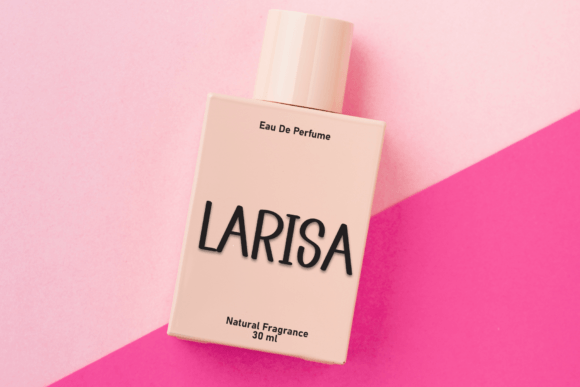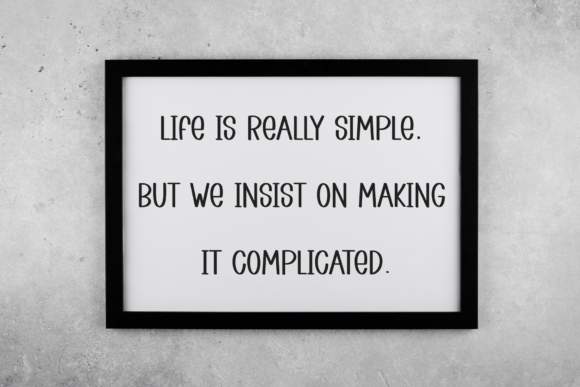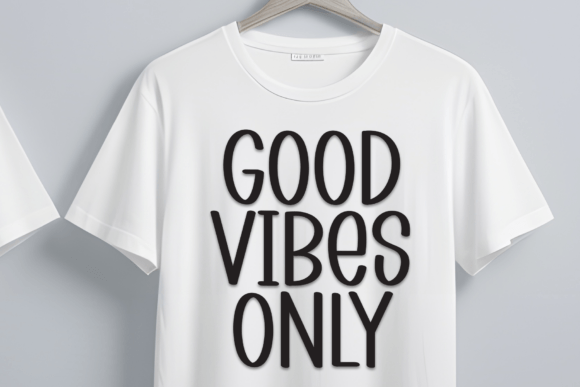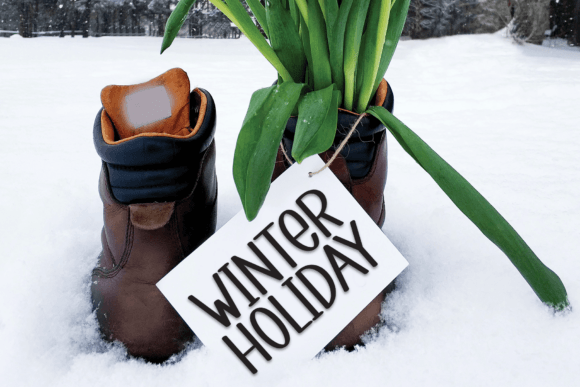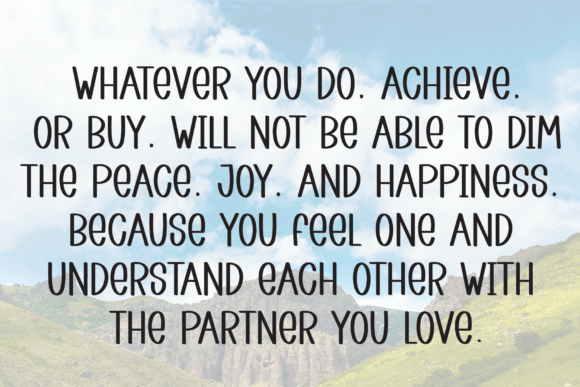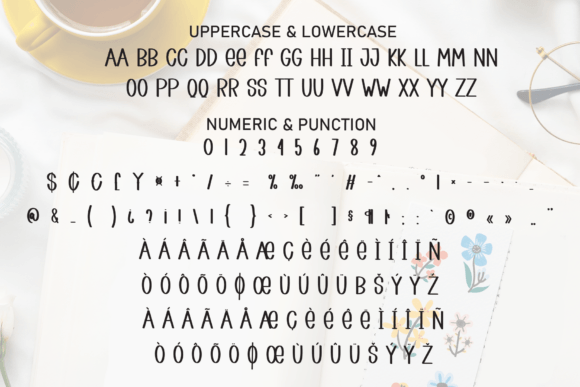
Introducing Bookmark Font: The Ultimate Display Font for Creative Projects
In the world of typography, a good font can make all the difference in the success of a design project. Whether you’re a graphic designer, a crafty DIY enthusiast, or a marketing professional, finding the right font can be a daunting task. That’s why we’re excited to introduce Bookmark Font, a bold and eye-catching display font that’s perfect for making titles, headlines, or important text stand out.
What is Bookmark Font?
Bookmark Font is a modern and playful display font that’s designed to grab attention. Its thick, clear letters are perfect for creating titles, headlines, or important text that needs to stand out. The font is versatile and can be used for a wide range of creative projects, including posters, logos, ads, and more.
Key Features of Bookmark Font
• Bold and Eye-Catching: Bookmark Font is designed to make a statement. Its thick, clear letters are perfect for creating titles, headlines, or important text that needs to stand out.
• Modern and Playful: The font has a modern and playful style that’s perfect for creative projects. It’s great for designs that need a bit of personality and flair.
• Versatile: Bookmark Font can be used for a wide range of creative projects, including posters, logos, ads, and more.
• Easy to Read: Despite its bold style, Bookmark Font is easy to read, making it perfect for titles, headlines, or important text.
Uses for Bookmark Font
Bookmark Font is perfect for a wide range of creative projects, including:
• Posters: Use Bookmark Font to create eye-catching posters for events, promotions, or announcements.
• Logos: Create a bold and memorable logo for your business or brand with Bookmark Font.
• Ads: Use Bookmark Font to create attention-grabbing ads for social media, print, or digital campaigns.
• Signs: Create eye-catching signs for events, sales, or promotions with Bookmark Font.
• Social Media Graphics: Use Bookmark Font to create engaging social media graphics, including Facebook posts, Twitter headers, and Instagram stories.
Tips for Using Bookmark Font
Here are some tips for using Bookmark Font in your design projects:
• Use it sparingly: Bookmark Font is bold and eye-catching, so use it sparingly to avoid overwhelming your design.
• Pair it with other fonts: Pair Bookmark Font with other fonts to create visual interest and hierarchy in your design.
• Experiment with colors: Bookmark Font looks great in a variety of colors, so experiment with different colors to find the one that works best for your design.
• Keep it simple: Bookmark Font is a bold font, so keep your design simple and clean to avoid overwhelming the font.
Bookmark Font is a bold and eye-catching display font that’s perfect for creative projects. Its thick, clear letters are perfect for making titles, headlines, or important text stand out. With its modern and playful style, Bookmark Font is great for designs that need a bit of personality and flair. Whether you’re a graphic designer, a crafty DIY enthusiast, or a marketing professional, Bookmark Font is a great addition to your font library.